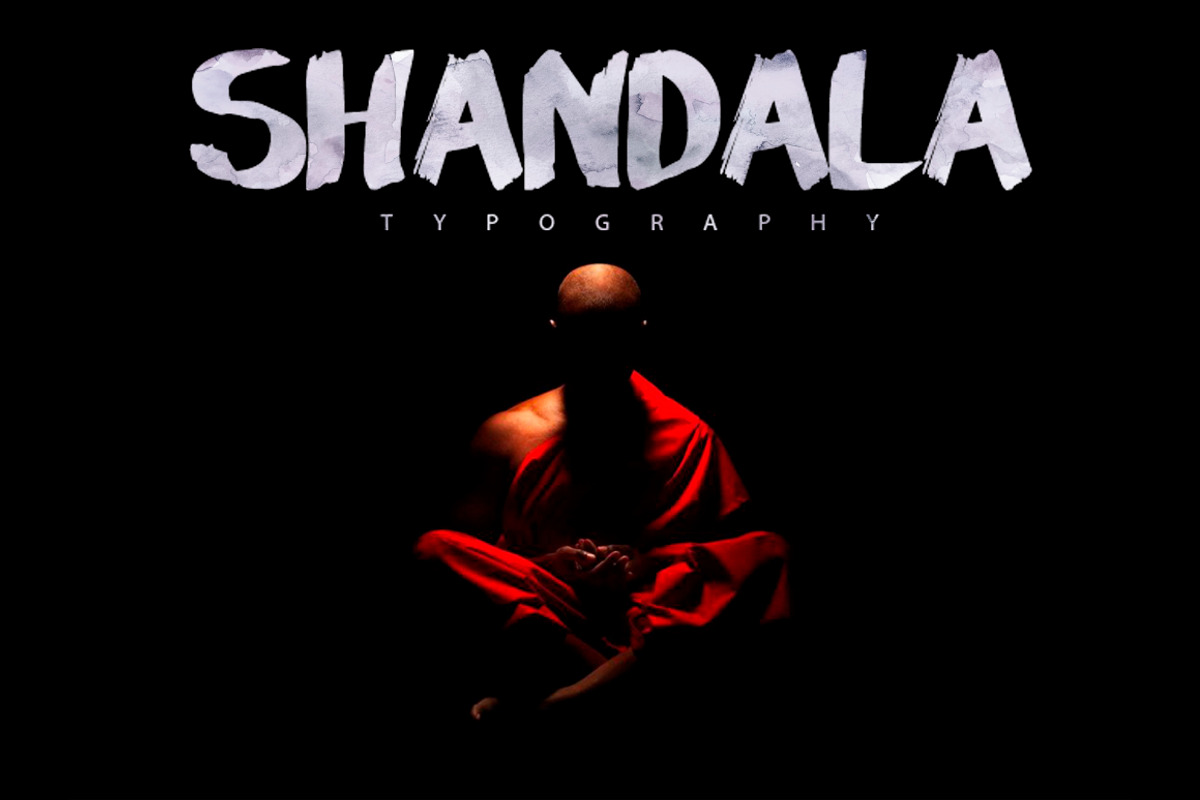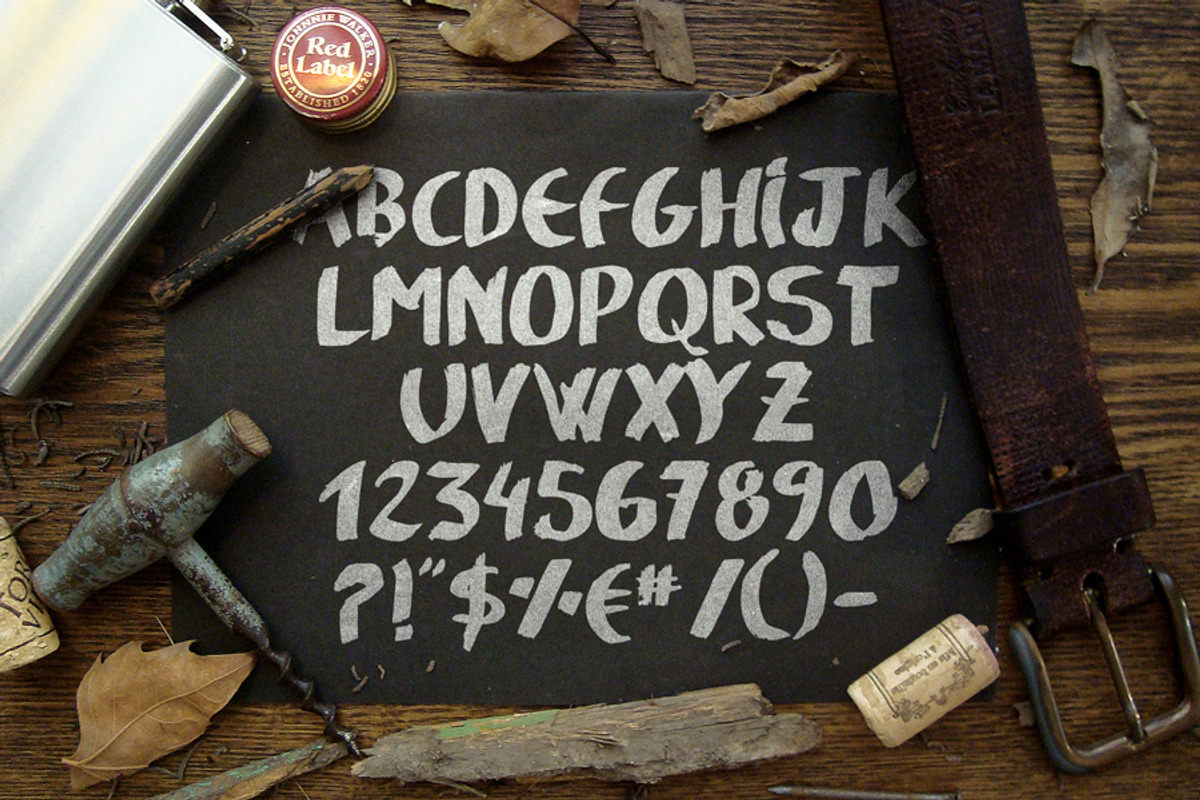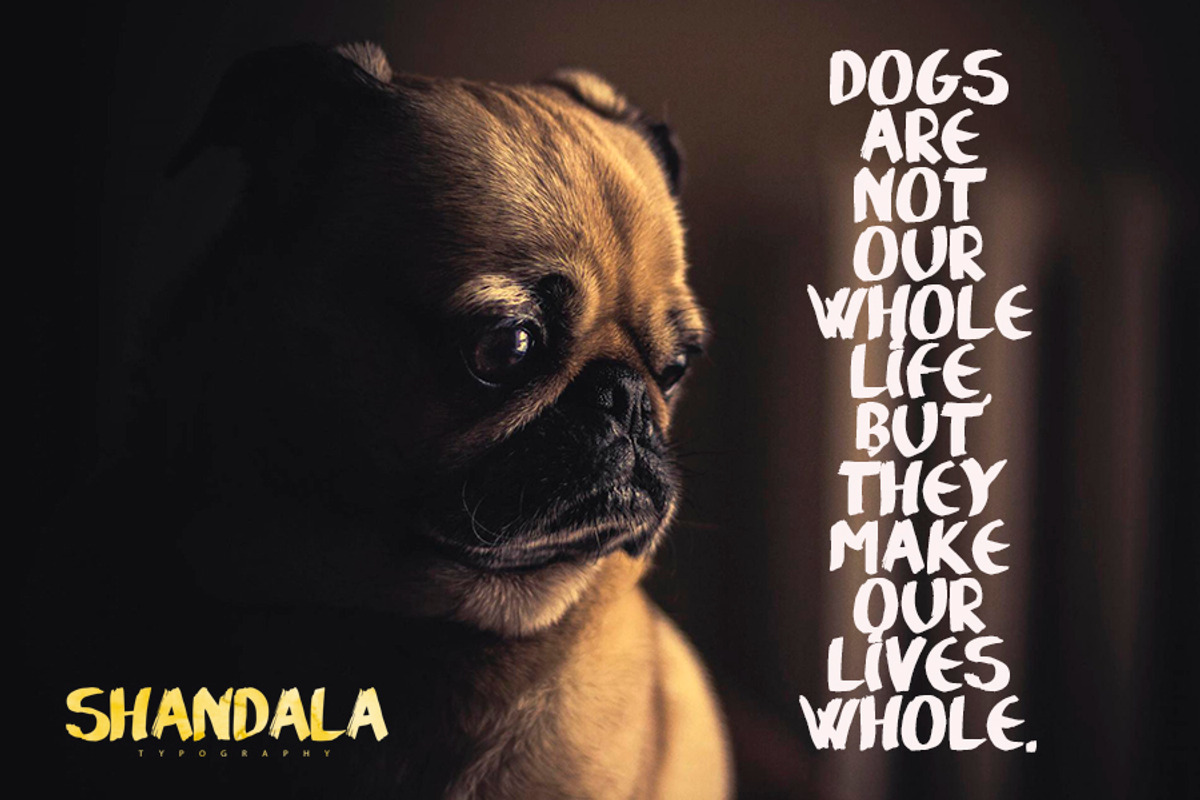
Shandala Brush Typeface
Shandala Brush Typeface by MoonfishStudio is a font selected for branding, posters, packaging, typography.
Why Shandala Brush Typeface is worth a look
Shandala Brush Typeface by MoonfishStudio fits naturally into Branding, posters, packaging, typography.